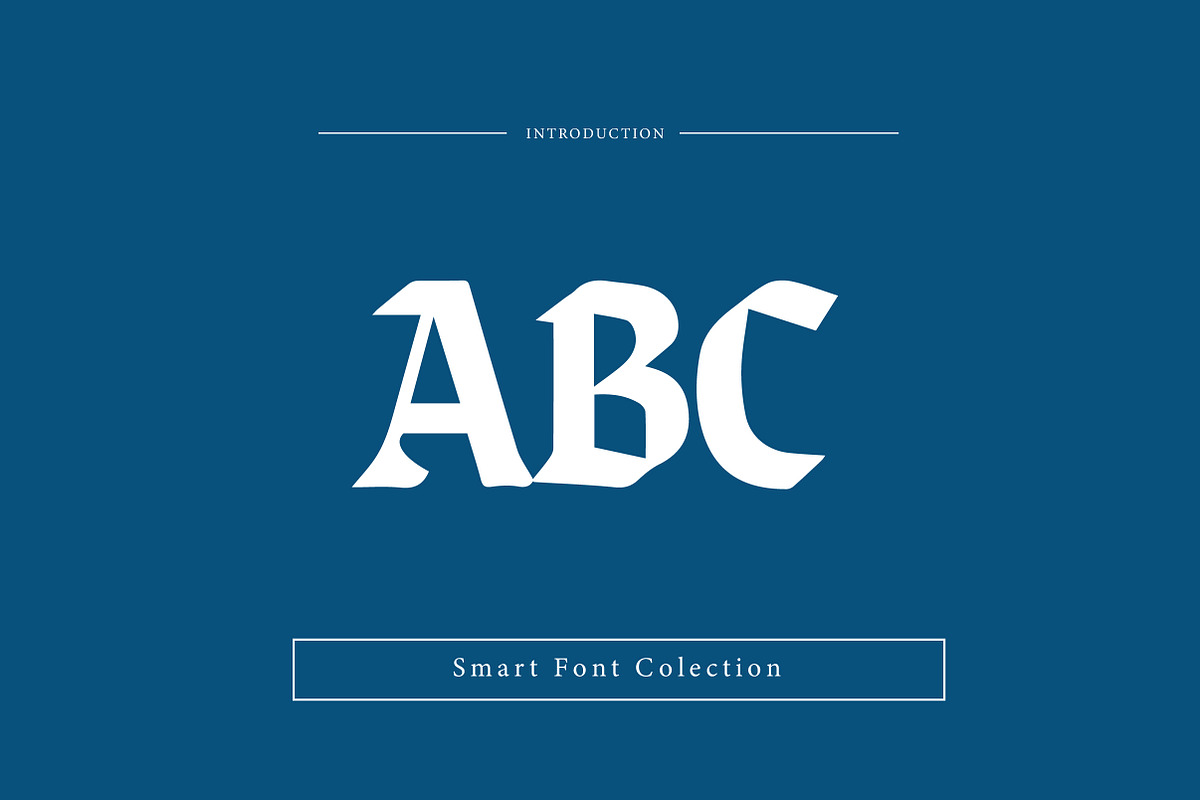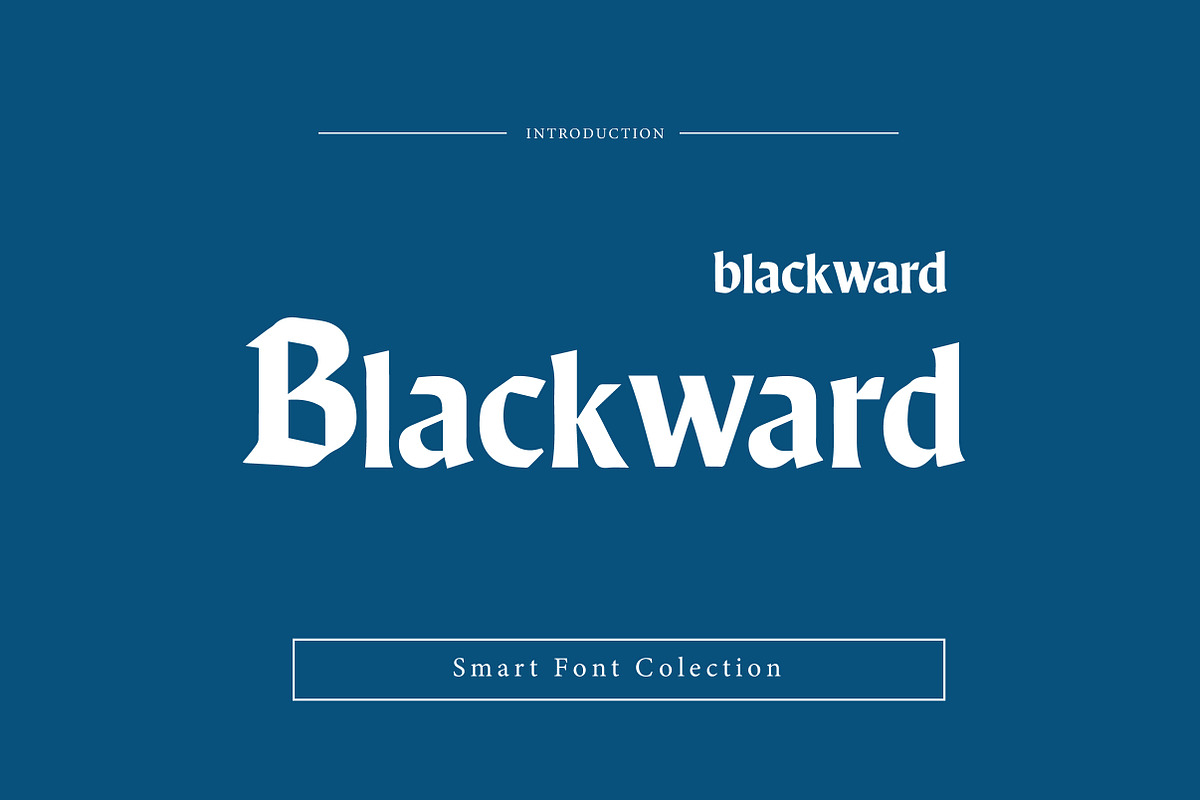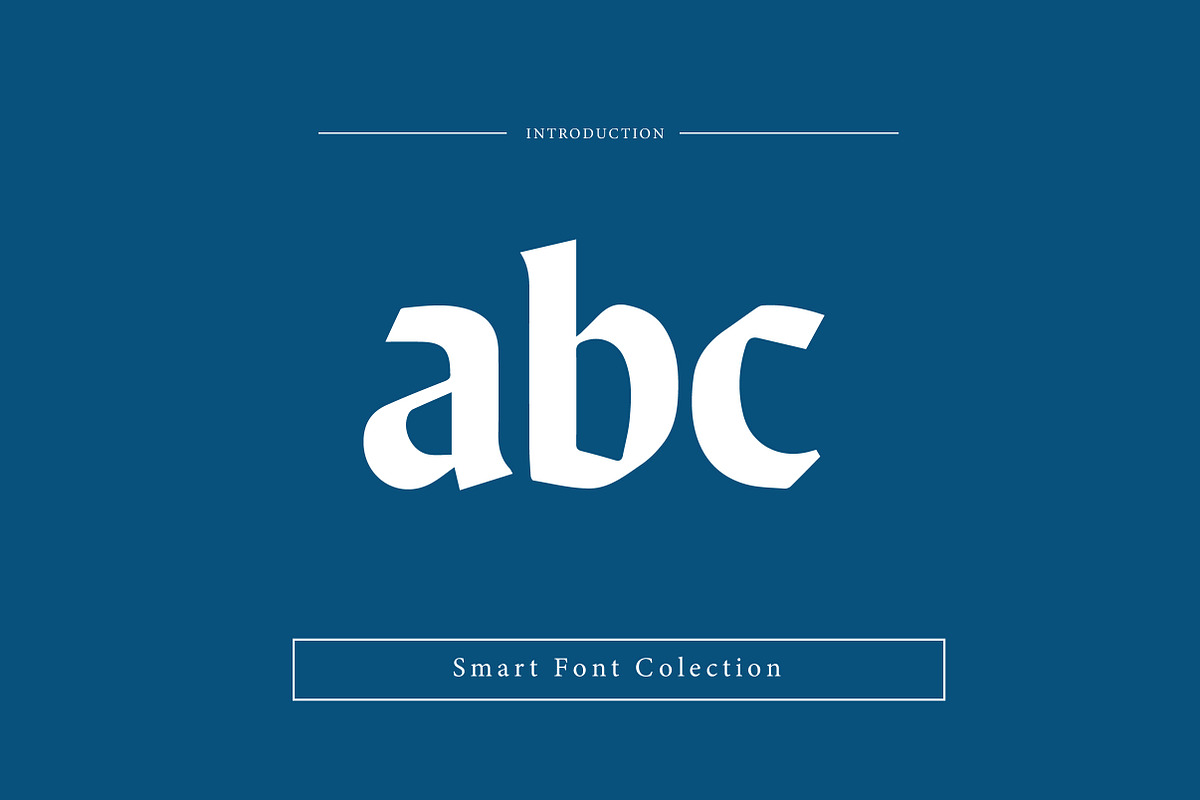
BLACKWARD
Blackward is a bold and elegant blackletter display font inspired by classic gothic and medieval typography. With sharp edges, strong vertical strokes, and a timeless old-world character, this font is perfect for logos, branding, posters, album covers, tattoos, book titles, packaging, and dark-themed designs. Blackward delivers a powerful and authoritative presence, making it ideal for projects that require a dramatic, vintage, or historical aesthetic.